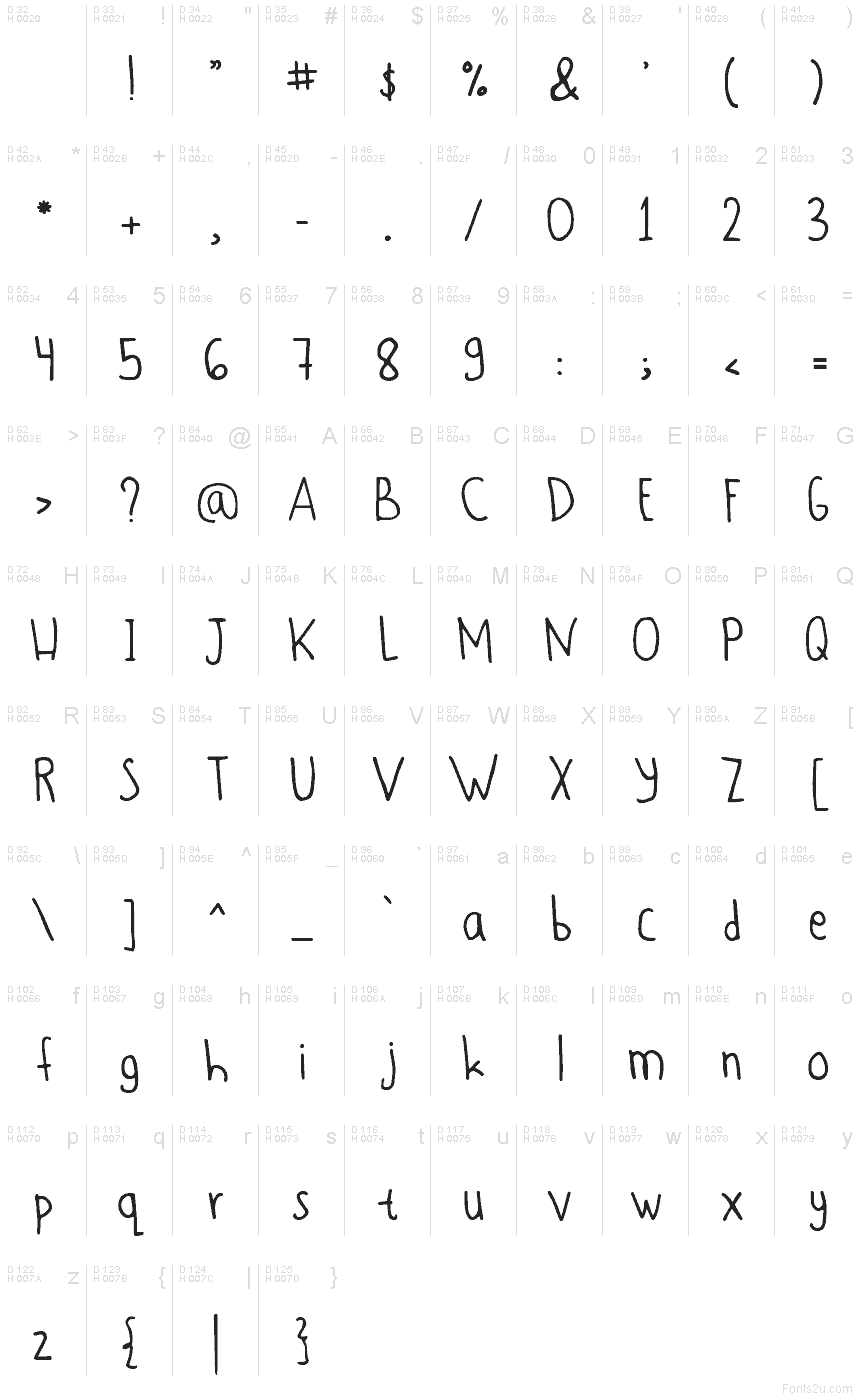
Andari Hand Writing
Andarai Hand Writing font is a handwritten typeface created by Tri Anggoro. This font carries the true nature of hand-drawn forms in all its relaxed and casual elements. Equipped with contemporary letter designs, the font seamlessly connects apparent simplicity with modernity.